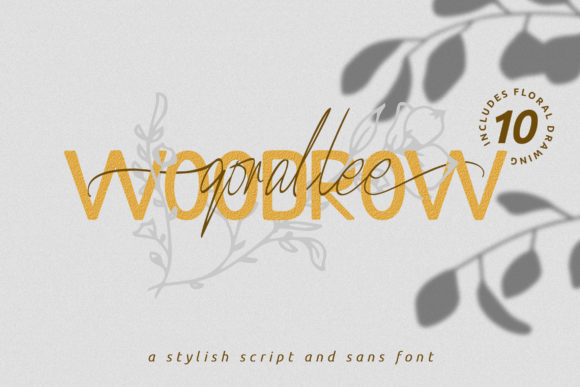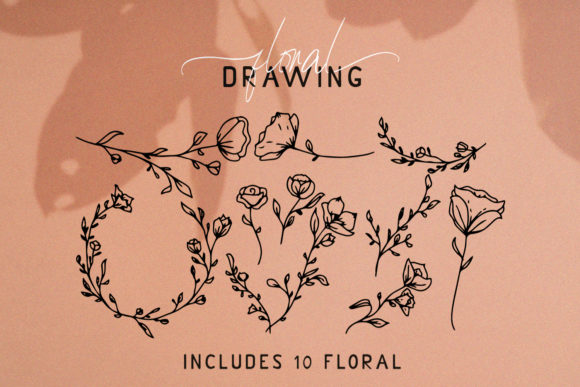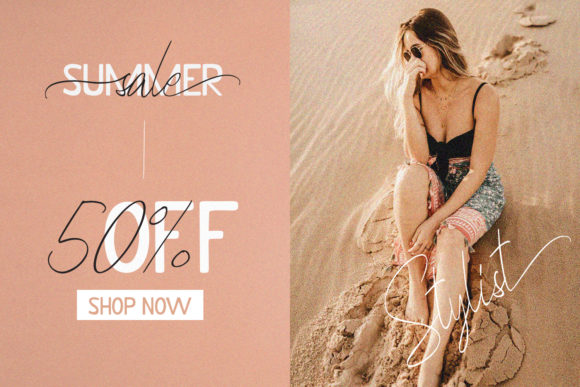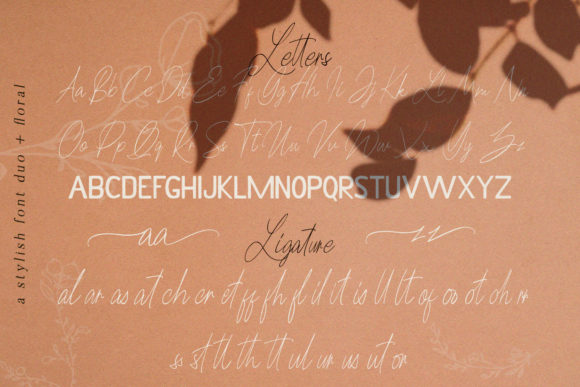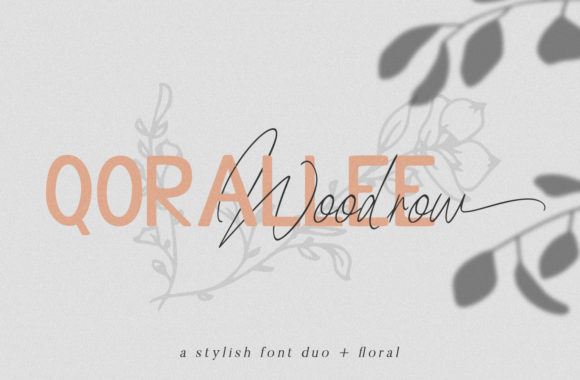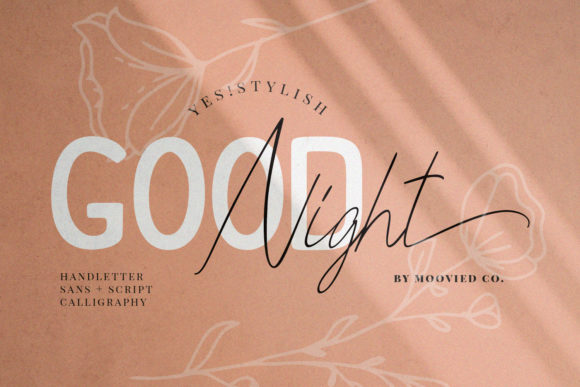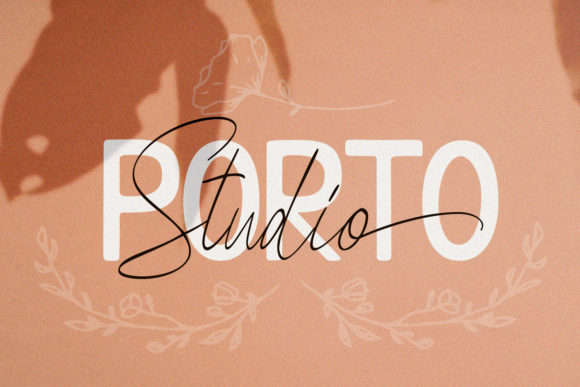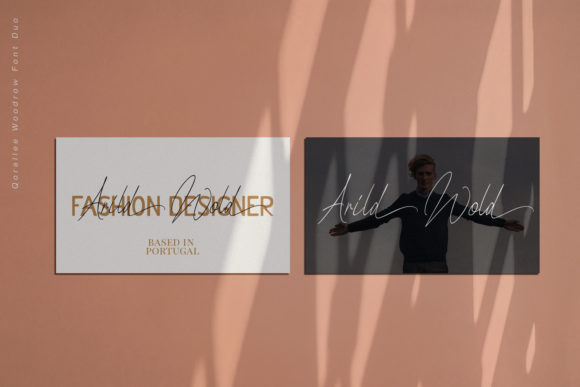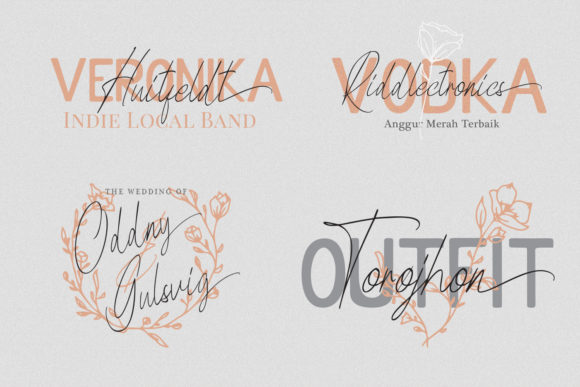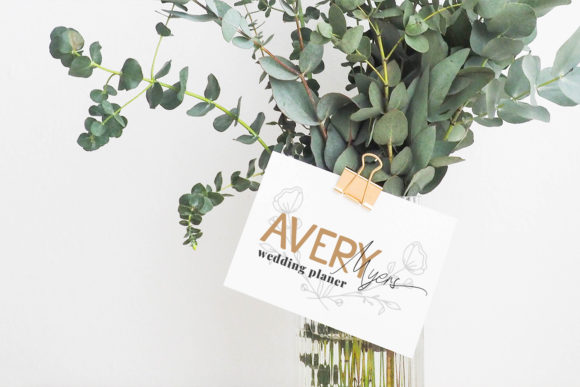
Qorallee Woodrow Duo Font
About Qorallee Woodrow Duo Font
Qorallee Woodrow is a striking font duo with a contemporary charm. It will turn any craft idea into a stand out!